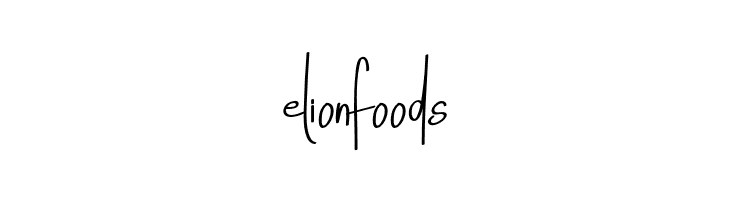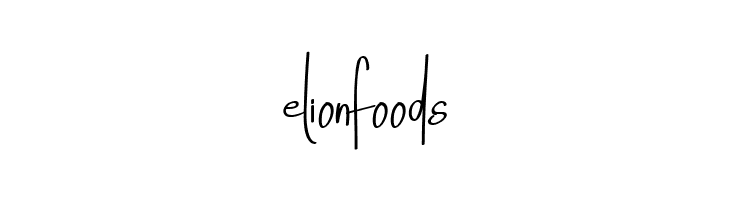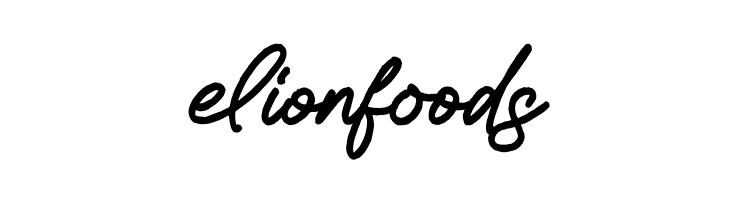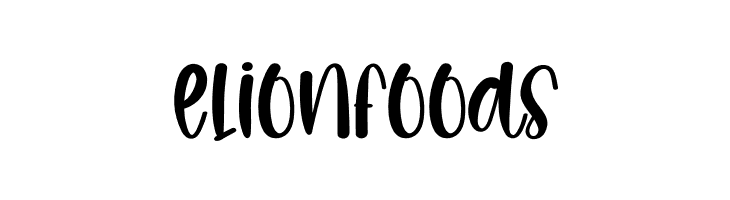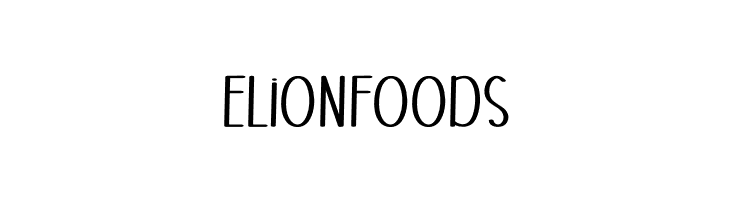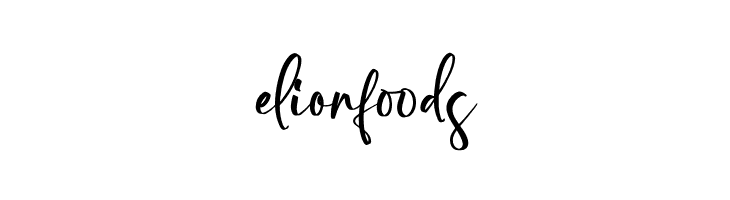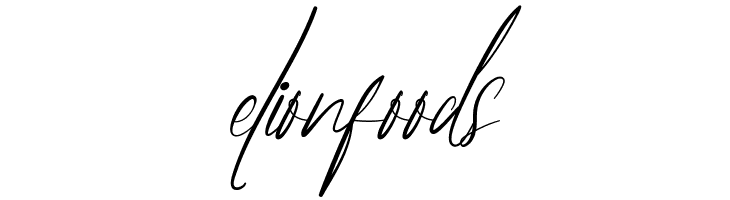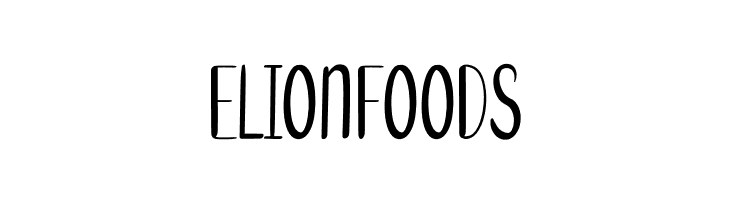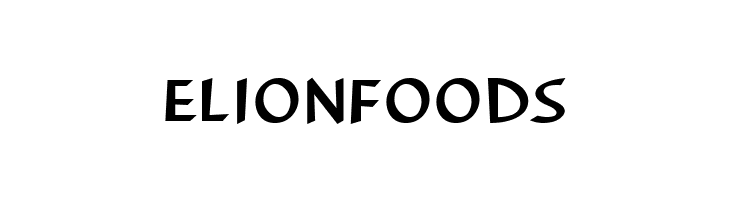
A bold, flowing script font with a playful, handwritten style.
A tall, slender handwritten font with dynamic, flowing strokes.
A playful, handwritten font with tall, narrow characters and a lively, informal style.
A playful, handwritten-style font with a whimsical and casual appearance.
Elegant and artistic script font.
A fluid and elegant script font with a handwritten feel.
A sophisticated and fluid script font with a handwritten appearance.
A flowing, cursive font with elegant loops and a handwritten appearance.
Playful handwritten font with tall, narrow characters.